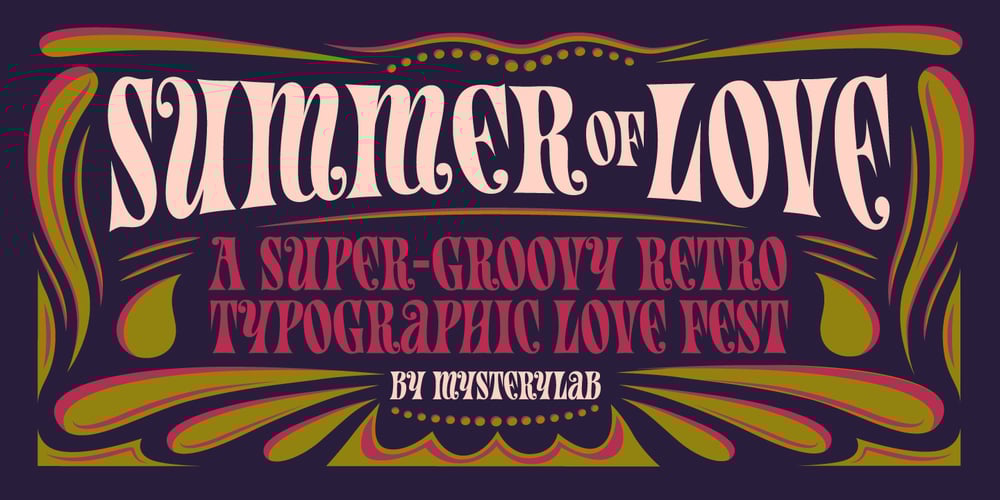
Summer of Love Font Family was designed by Mott Jordan and published by Mysterylab. Summer of Love contains 1 styles and family package options. It’s the Summer of Love all over again with this groovy psychedelic font. Designed in 2019, this typeface harks back to the carefree days of the late 1960s. Whimsical and offbeat with its swaying verticals, it nonetheless remains one of the more legible reimaginings of the genre, sporting all of the handlettered vibe of posters and album covers from the original hippie era, but with polished color and weight that evens out the legibility even at relatively small point sizes. Predominantly a unicase font, with a couple of alternate glyphs from upper to lowercase, Summer of Love works best as a large headline face, and benefits greatly from twisting and morphing the type blocks as was common during the original psych era. It’s a real groove machine, baby.